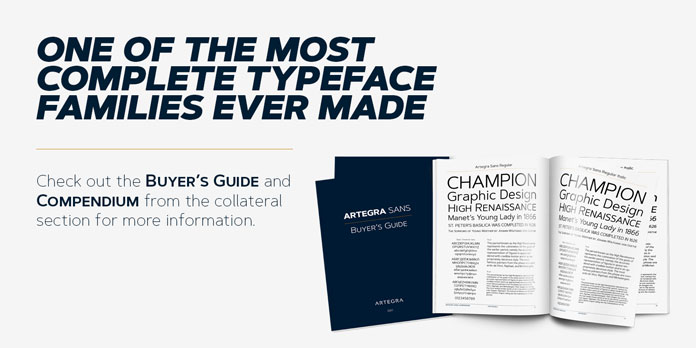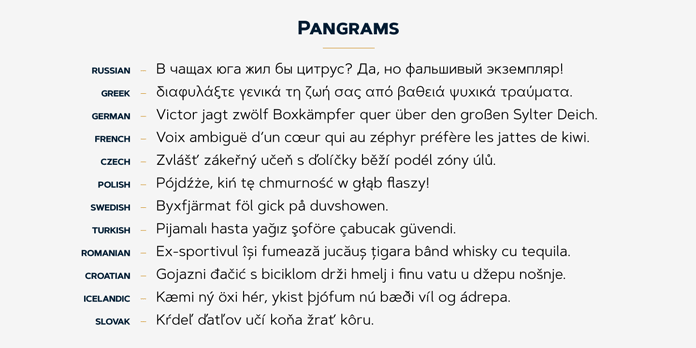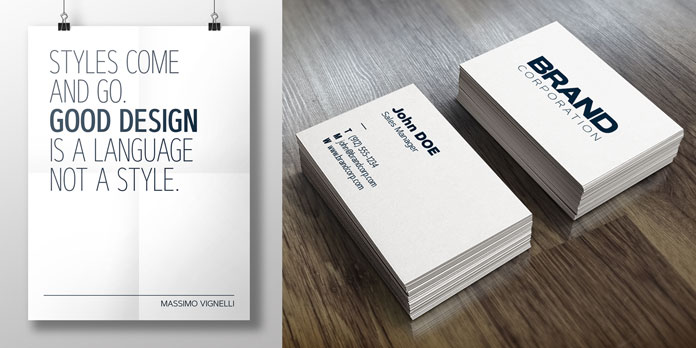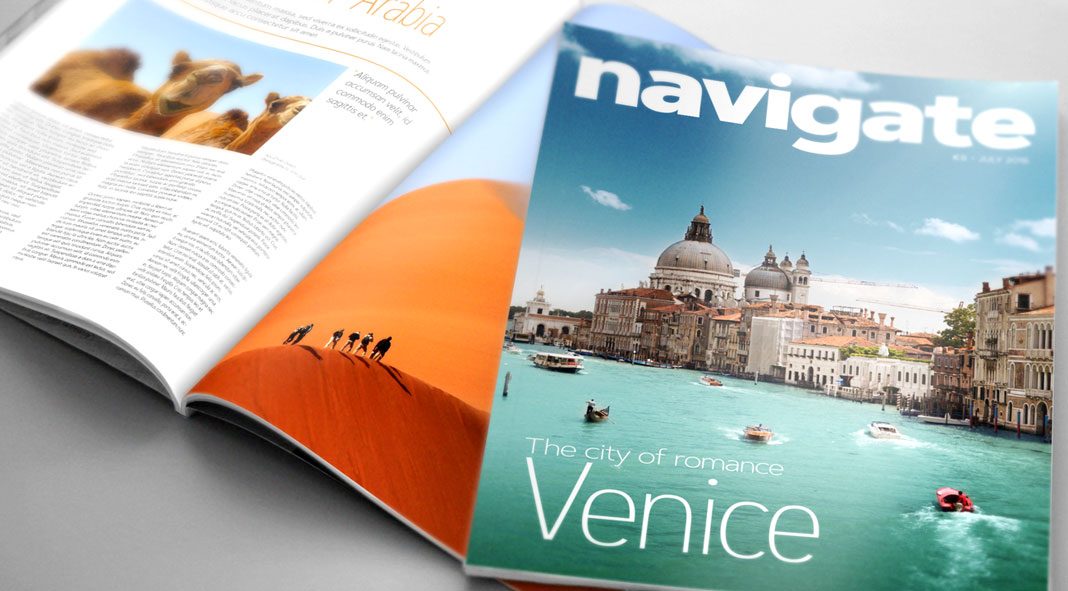
Artegra Sans – one of the most complete font families ever made!
The Artegra Sans font family has been designed over a period of almost 3 years by type designer Ceyhun Birinci. The geometric sans serif typeface is based on the idea of creating one of the world’s most comprehensive fonts. Equipped with 162 fonts (comprising numerous widths and weights), the Artegra Sans font family has been made for highest professional needs. With multi language support and countless OpenType features, this family is well suited for plenty of applications such as magazines, posters, branding, advertising, packaging, text and display purposes as well as web and mobile design. Please read more below or click on the following link.
These are the key features of the Artegra Sans font family.
This amazing set contains 162 fonts with more than 1500 glyphs per font. Furthermore, it includes 9 different weights plus matching Italics in 3 widths (normal, condensed, extended). The set of OpenType features contains alternate characters, small caps, ligatures, fractions, superscripts, subscripts, and ordinals. The huge character set supports an incredible amount of languages including all Latin based languages as well as Cyrillic and Greek writing systems. For further information on all features, just follow the link below.